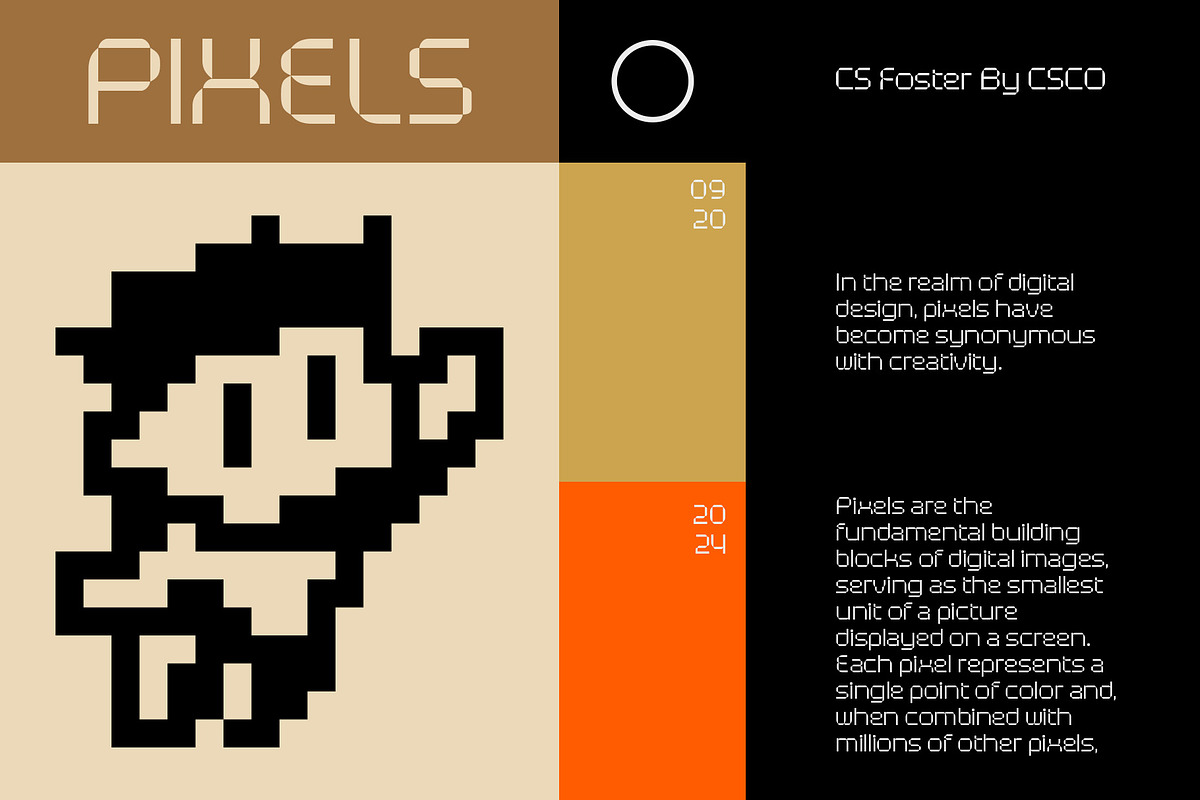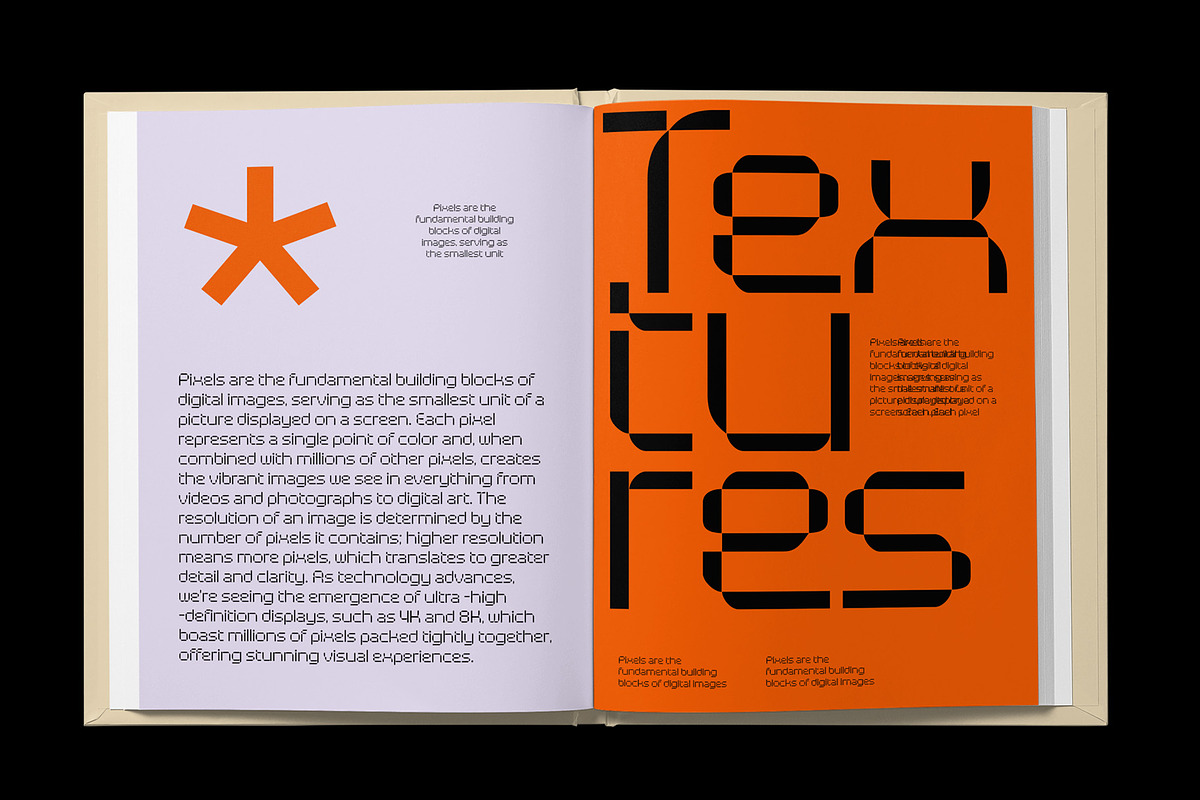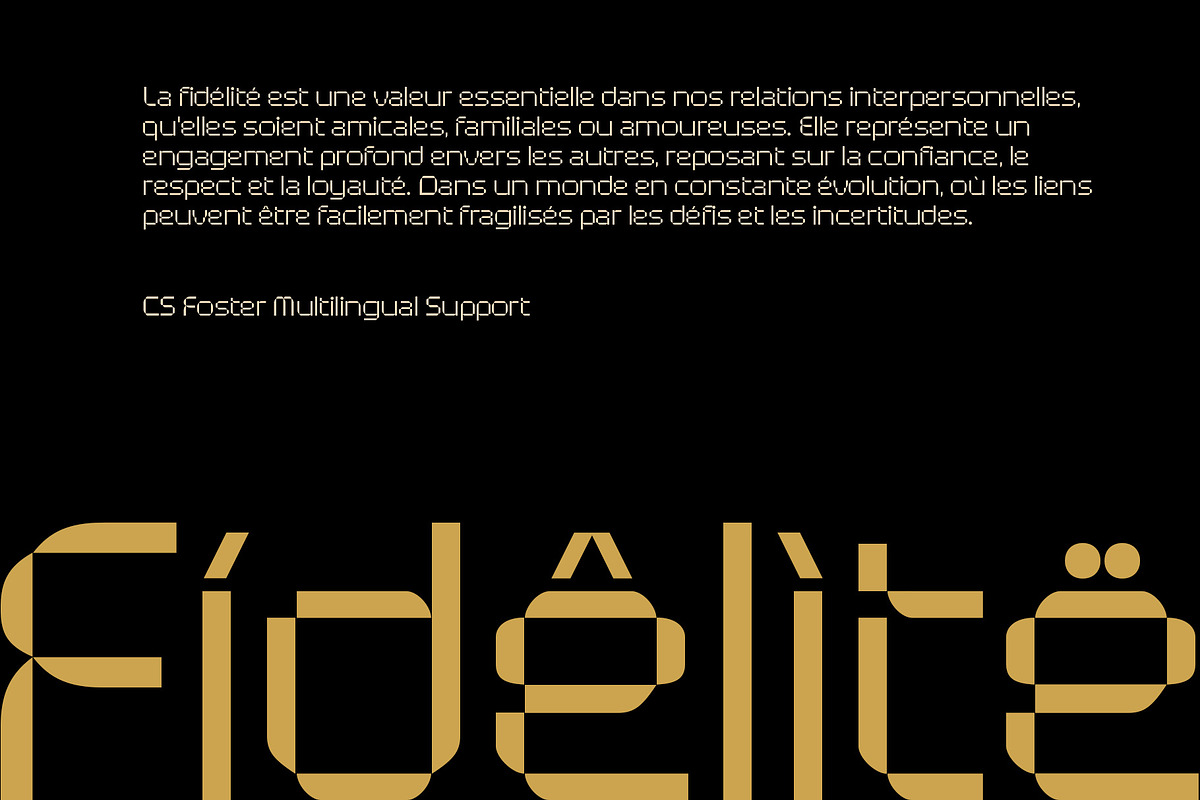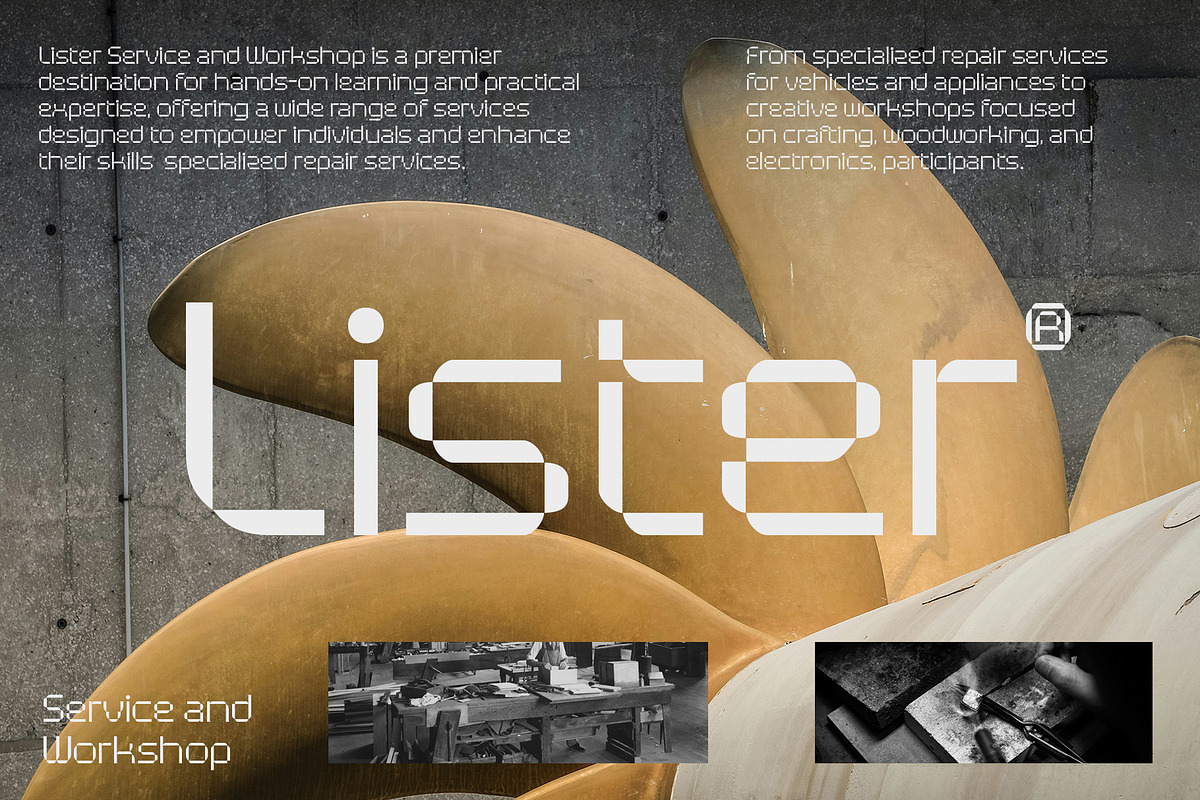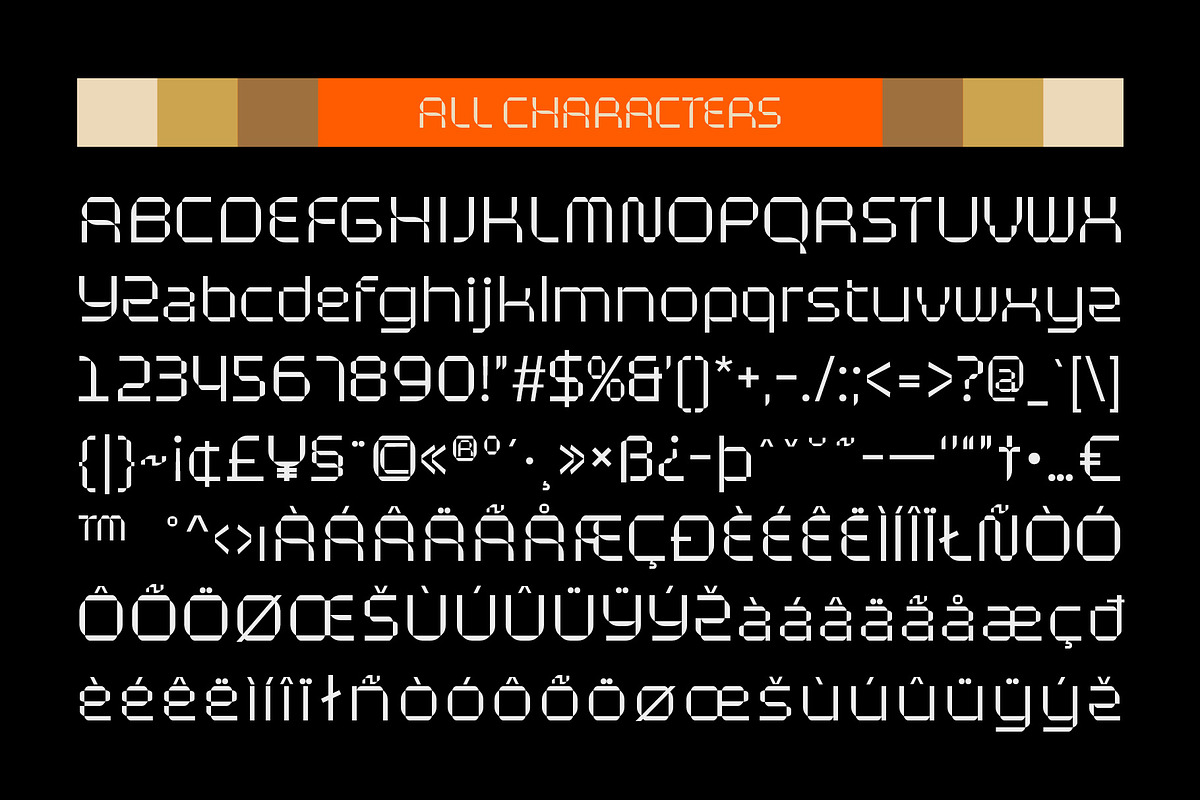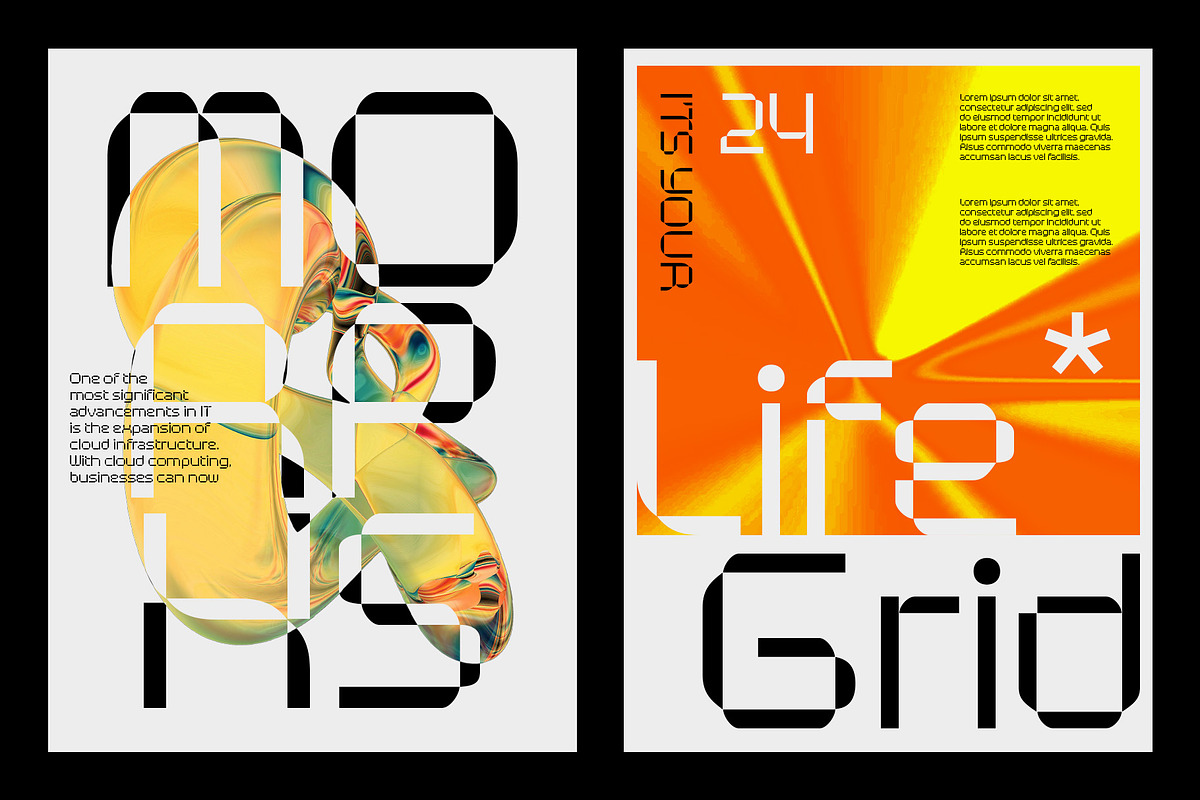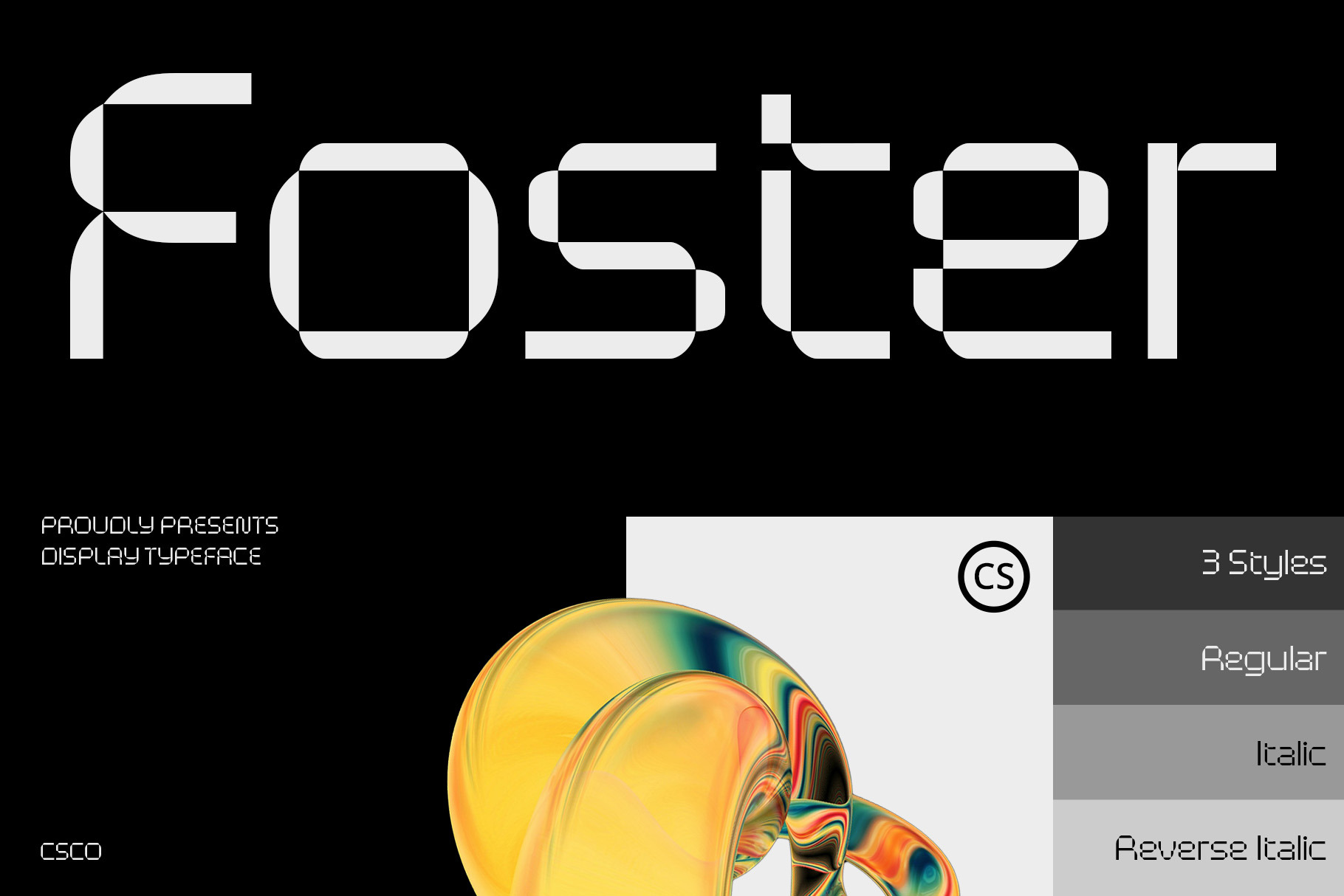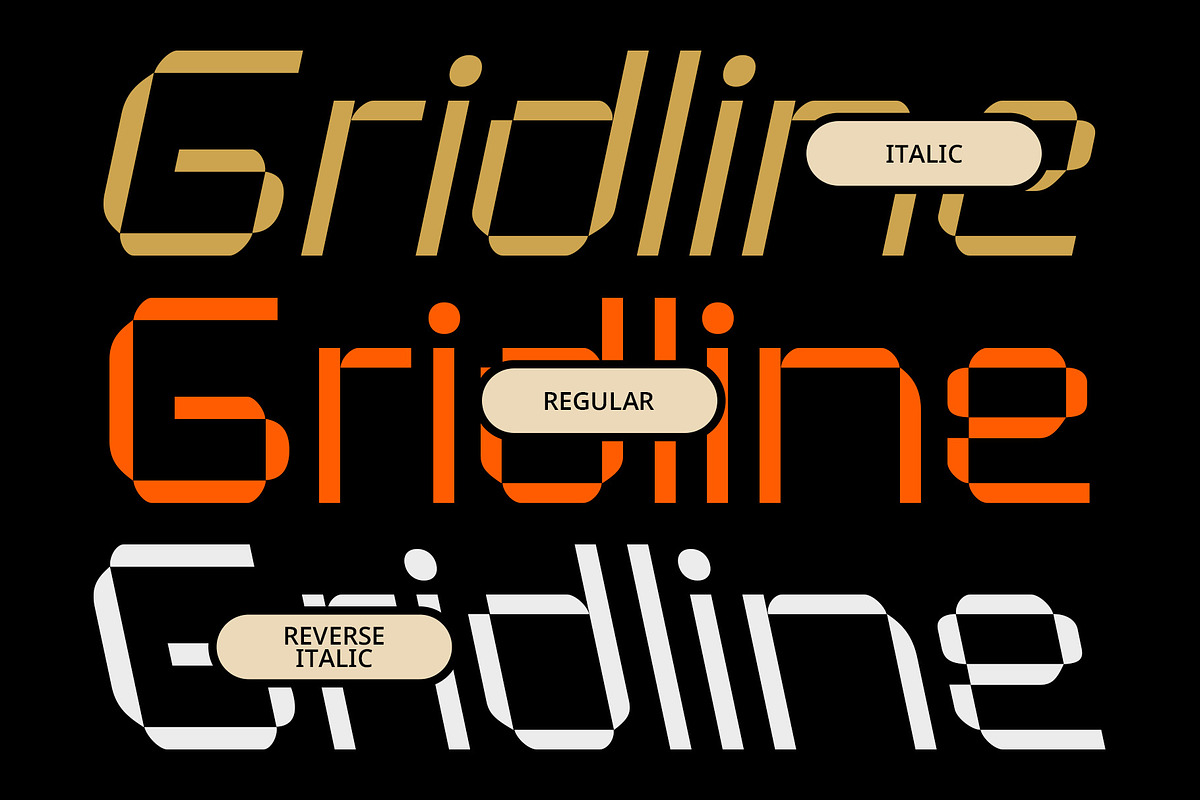
CS Foster – Pixel Font
CS Foster – Pixel Font: Reviving 90s Nostalgia
Display Font with Pixel Design CS Foster – Pixel Font is a display font that features a distinctive pixel design, evoking a retro and vintage 90s vibe. Inspired by early computer graphics, its sharp angles and prominent block shapes create an iconic and nostalgic appearance that stands out in any design.
Playful Aesthetic for Dynamic Projects This font is perfect for conveying a playful atmosphere, reminiscent of classic video games and simple computer software. Its whimsical character makes it an ideal choice for designs aimed at capturing attention, adding a unique flair to posters, logos, and more.
Versatile for Creative Applications CS Foster – Pixel Font is highly versatile, suitable for a variety of design projects. Whether you’re creating promotional materials or nostalgic graphics, this font revives memories of 90s pop culture, ensuring your designs resonate with audiences while celebrating the charm of retro aesthetics.
Perfect for Nostalgic Celebrations With its unique aesthetic and retro influence, CS Foster – Pixel Font is the perfect choice for projects that celebrate nostalgia. Ideal for any design that seeks to evoke the spirit of the 90s, this font ensures your work stands out while capturing the playful essence of a bygone era.
- CS Foster Regular
- CS Foster Italic
- CS Foster Reverse Italic